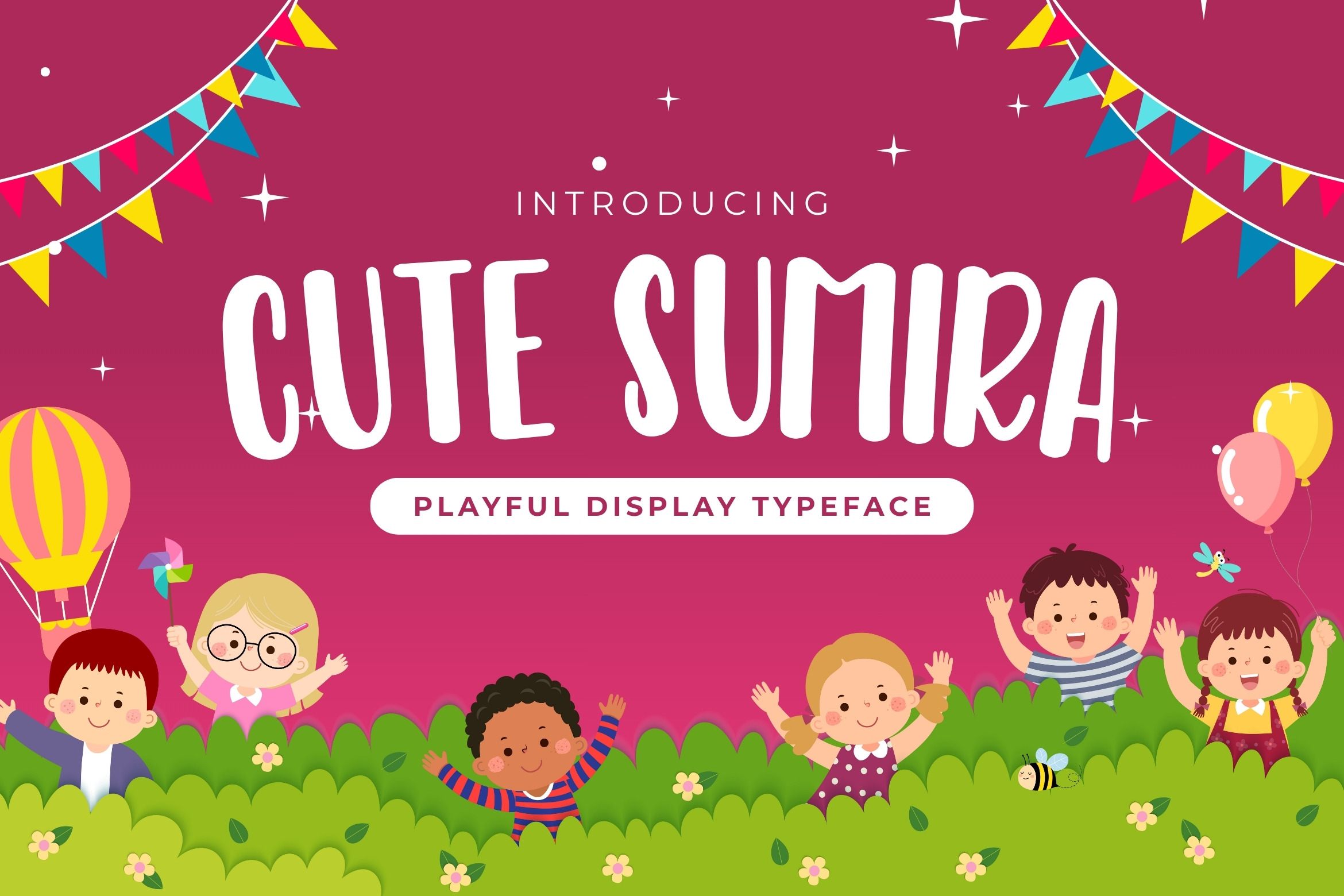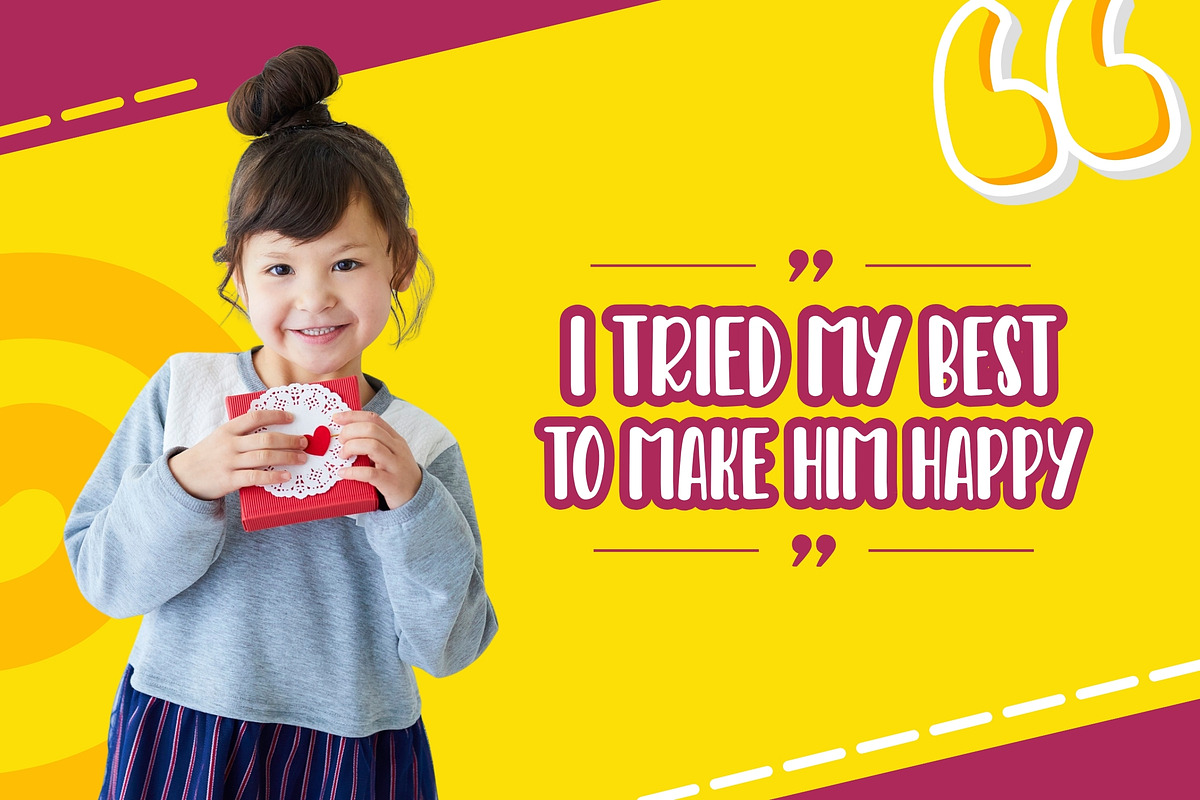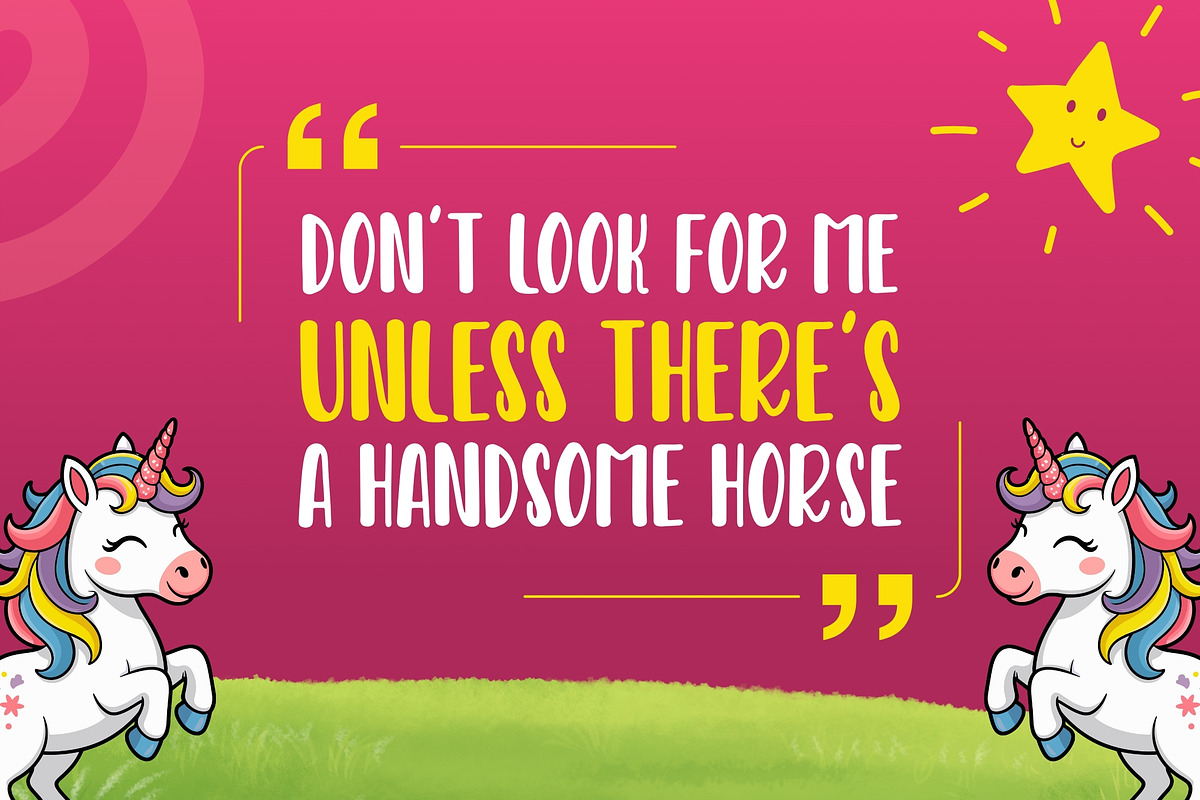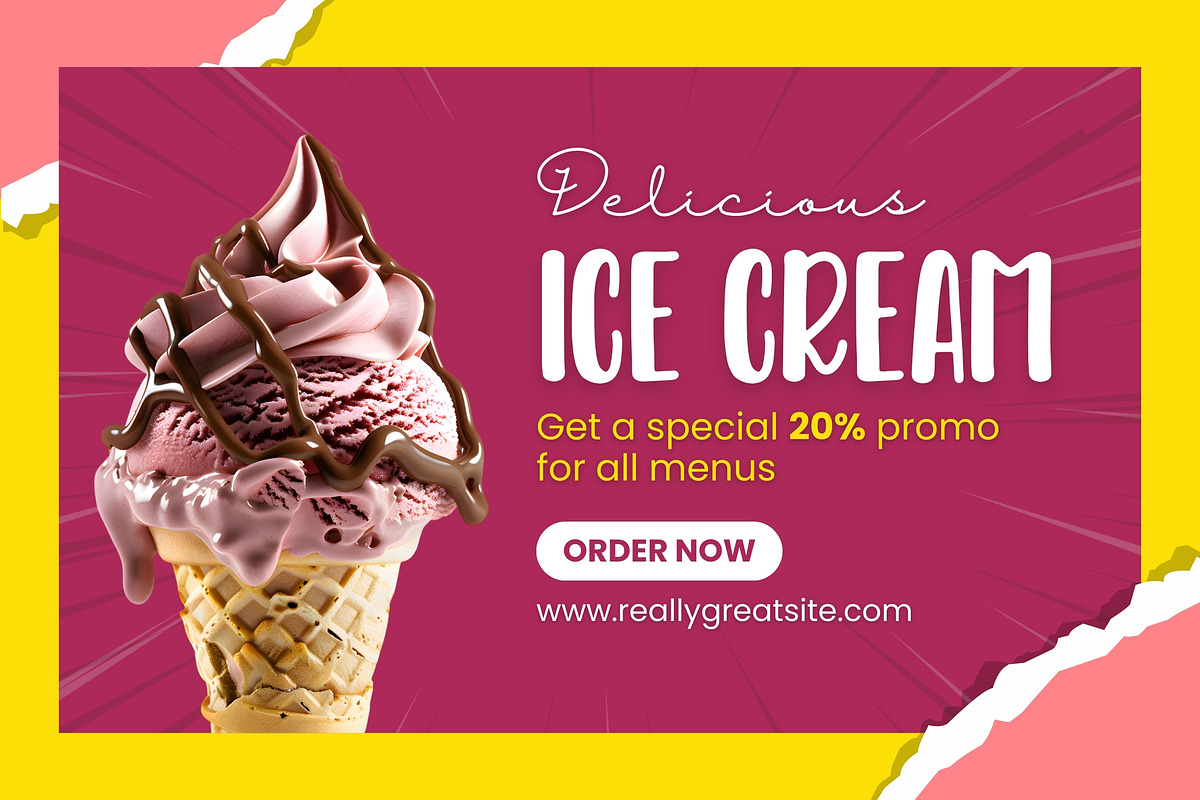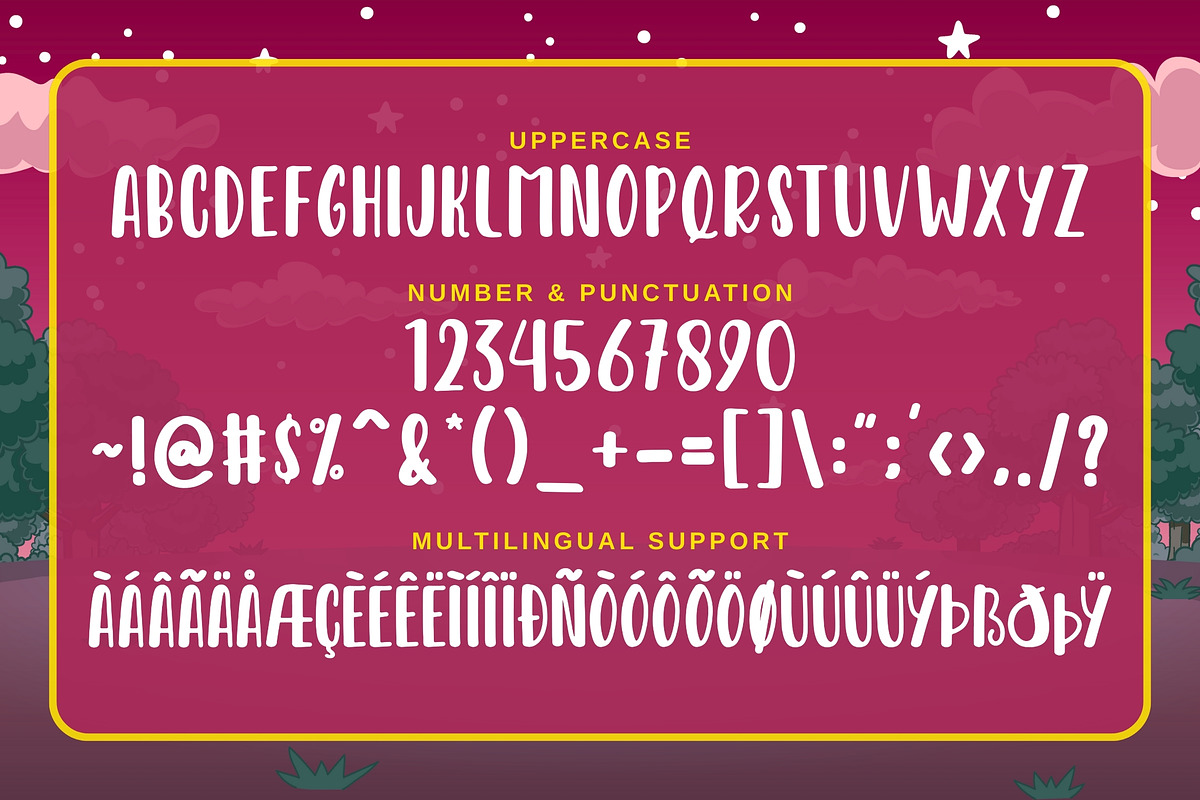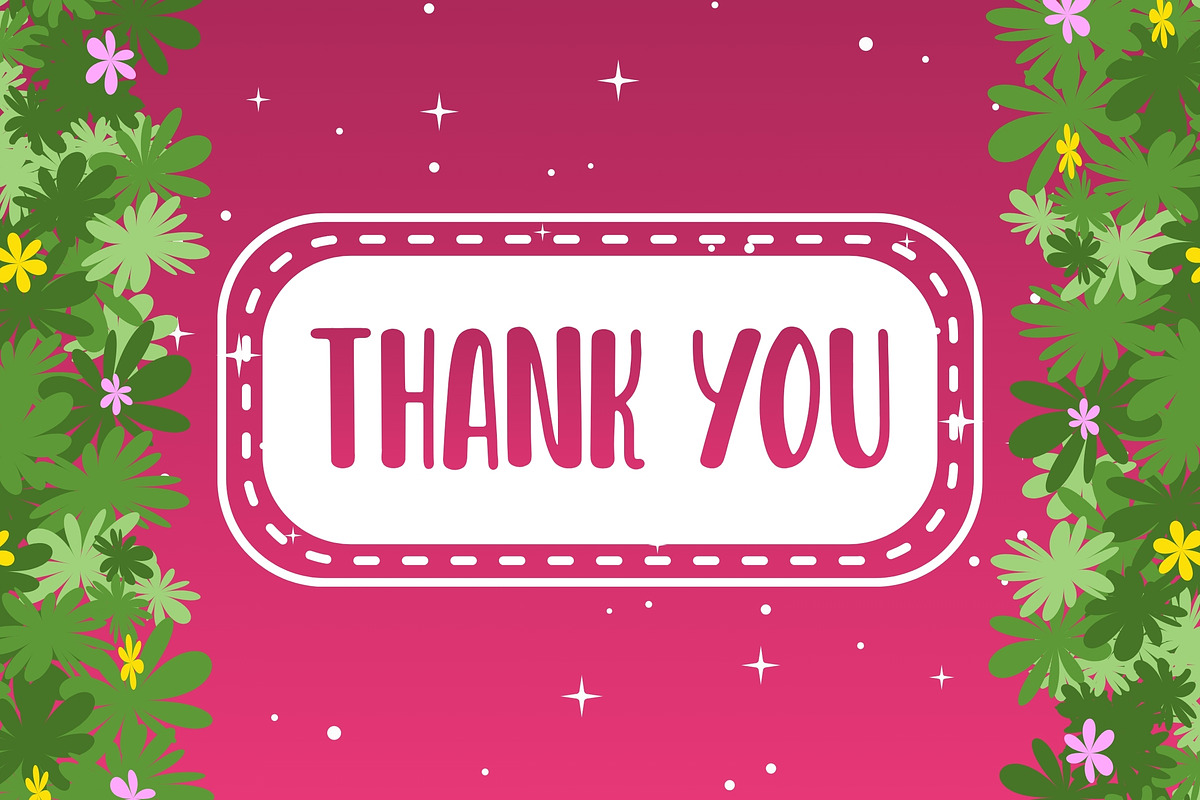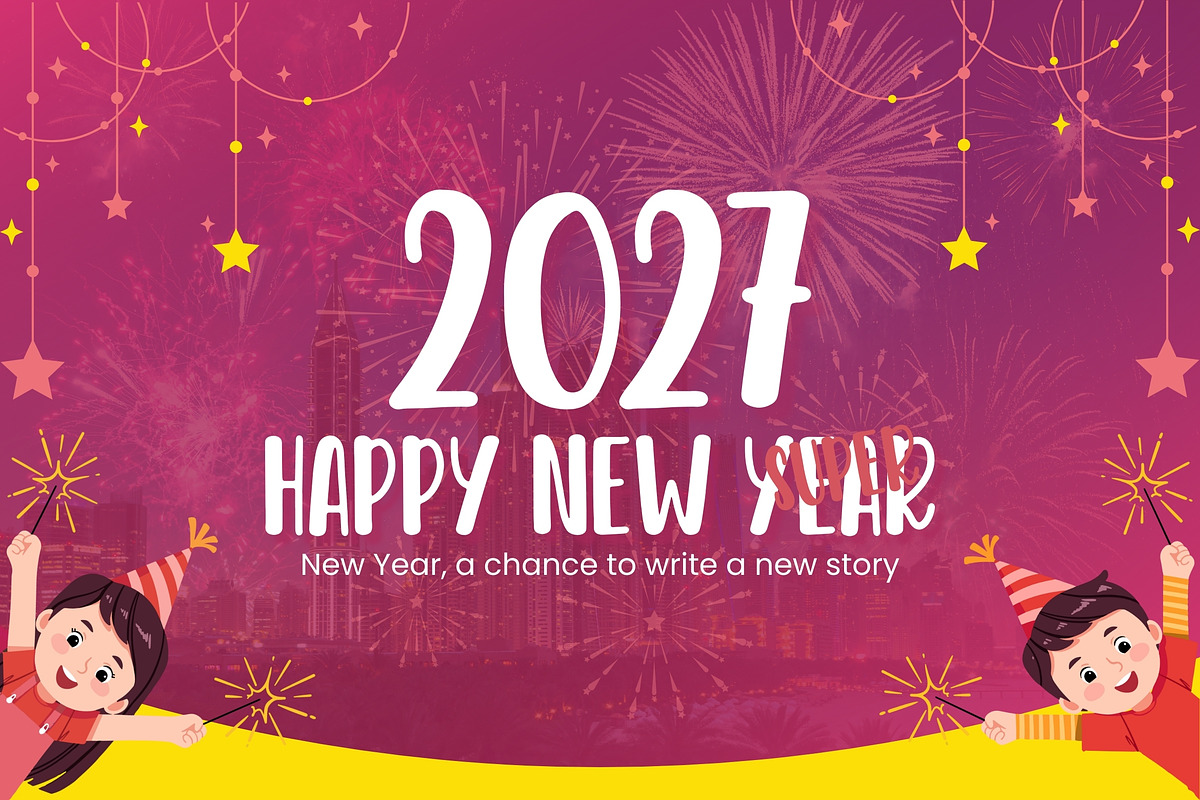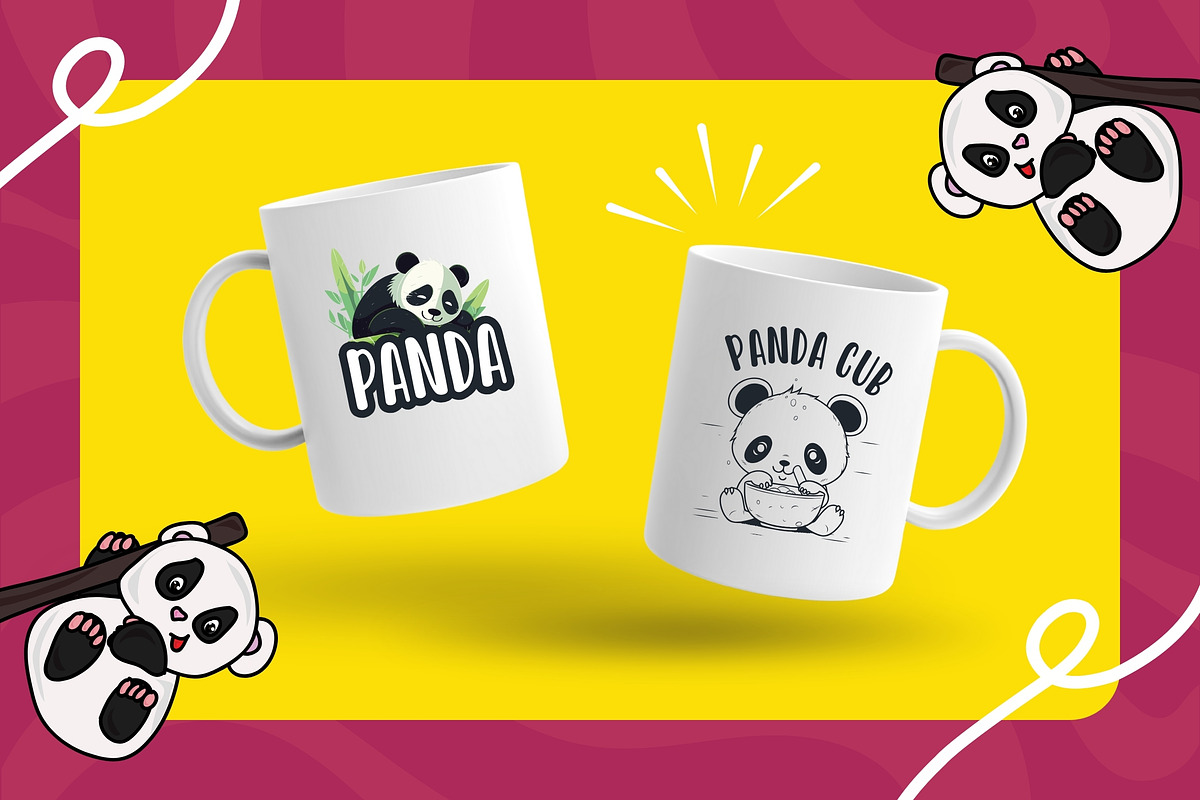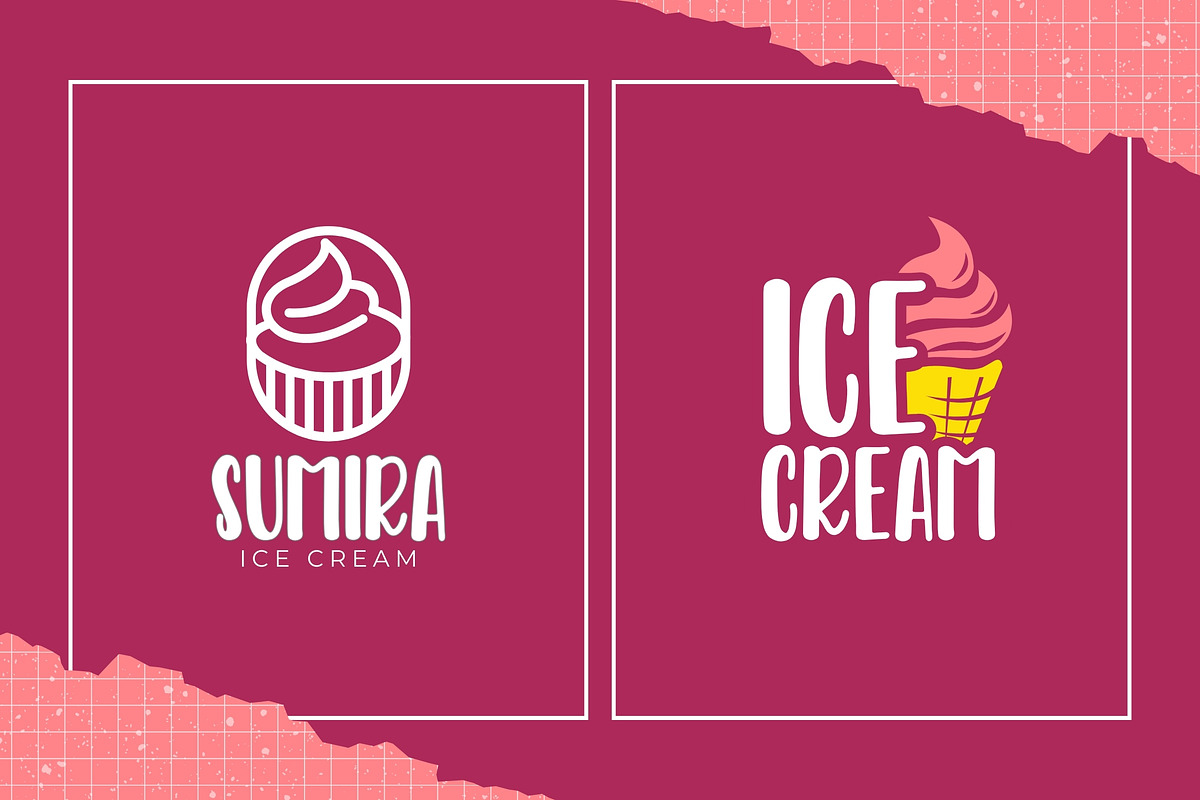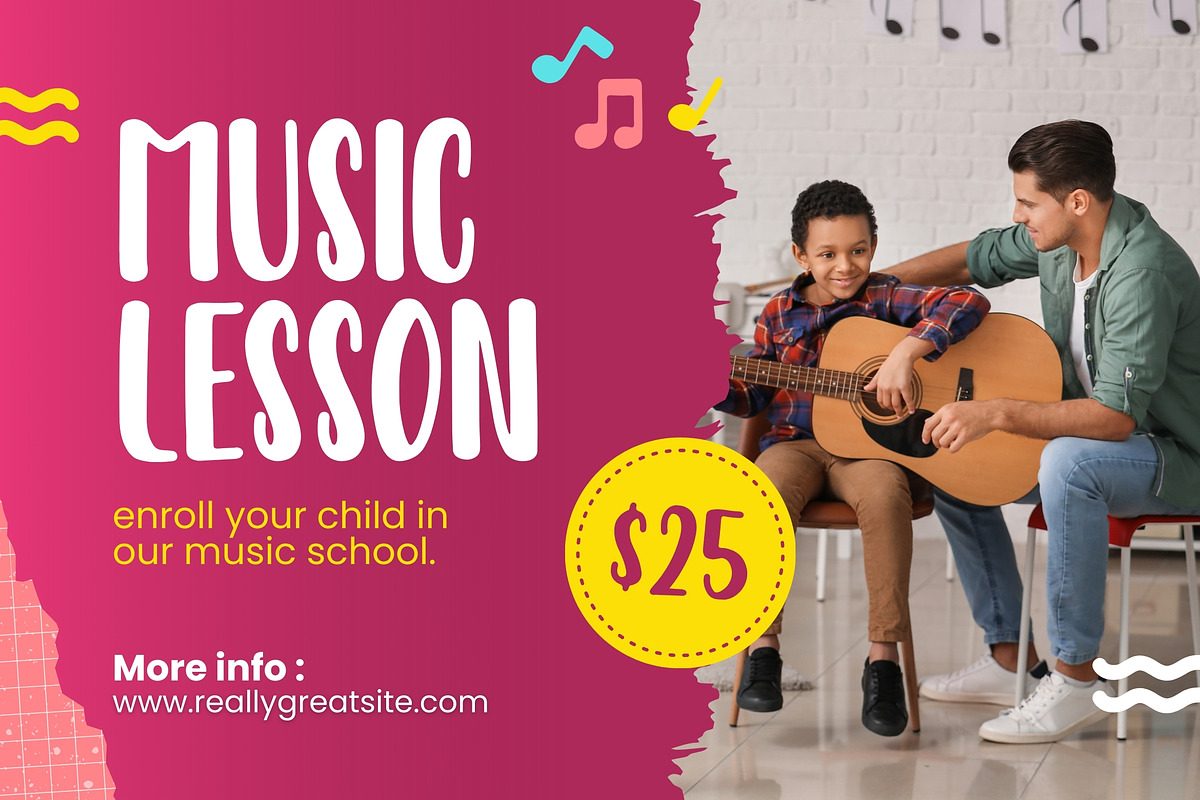
Cute Sumira – Sweet Font
Cute Sumira is a whimsical and dreamy kids font designed to bring a sense of imagination, softness, and storytelling magic into your designs. With its slim strokes, rounded forms, and gentle flow, this font feels playful yet calm—perfect for creative projects inspired by childhood dreams.
Cute Sumira is ideal for designs that want to feel sweet, magical, and expressive, without being too bold or overwhelming.
- Children’s storybooks and fairy-tale designs
- Cute illustrations and imaginative projects
- Kids branding with a soft and magical touch
- Posters, titles, and playful headlines
- Creative content that needs a dreamy atmosphere
- Uppercase letters
- Slim, playful, and whimsical style
- Multilingual character support
- Kid-friendly and readable
- Suitable for print and digital use
Why Choose Cute Sumira? Cute Sumira helps your designs feel magical, gentle, and full of imagination. Its charming letterforms are perfect for designers and brands who want to create storytelling visuals that connect emotionally with children and families.